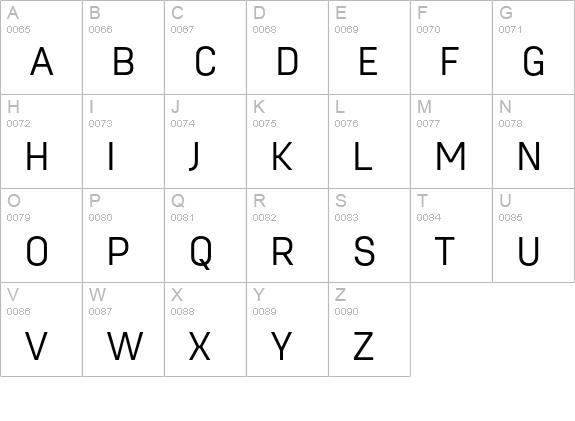
Antartida Light is a refined, elegant variant in the Antartida typeface family \xE2\x80\x94 well suited to elegant body text, refined sub-headings, and luxury branding.